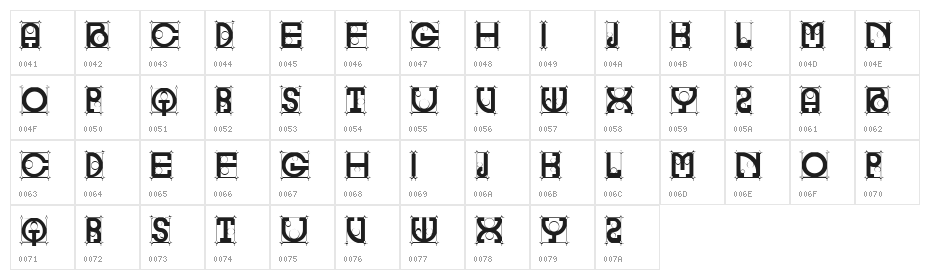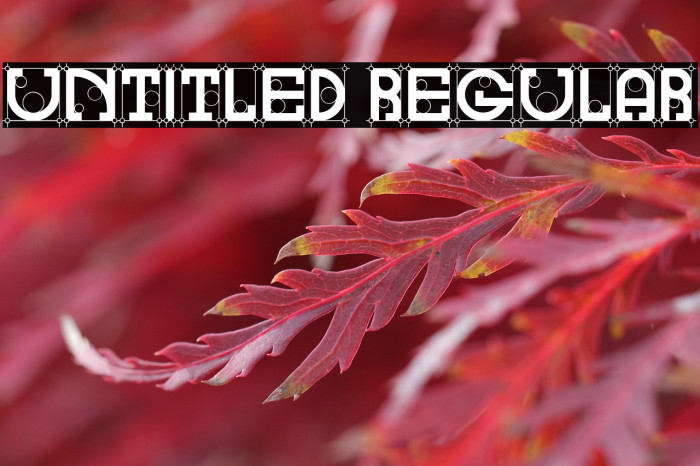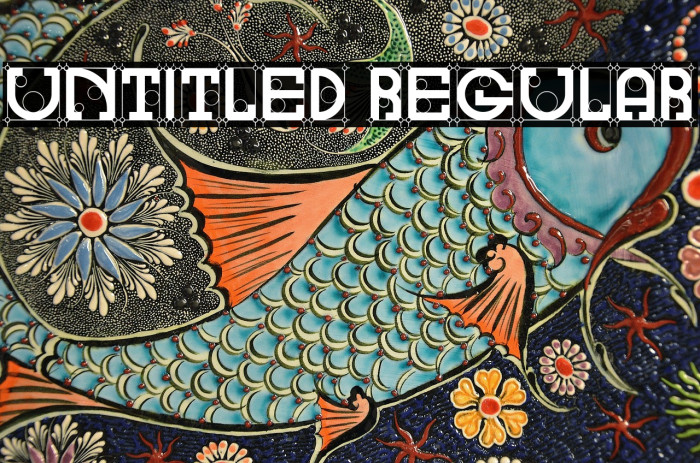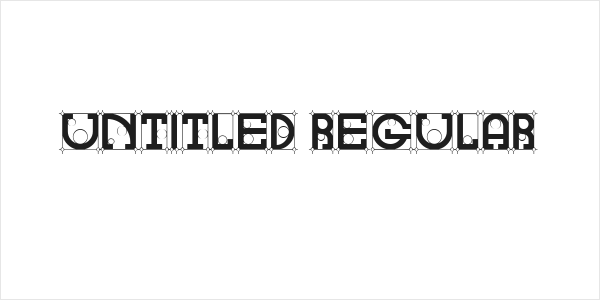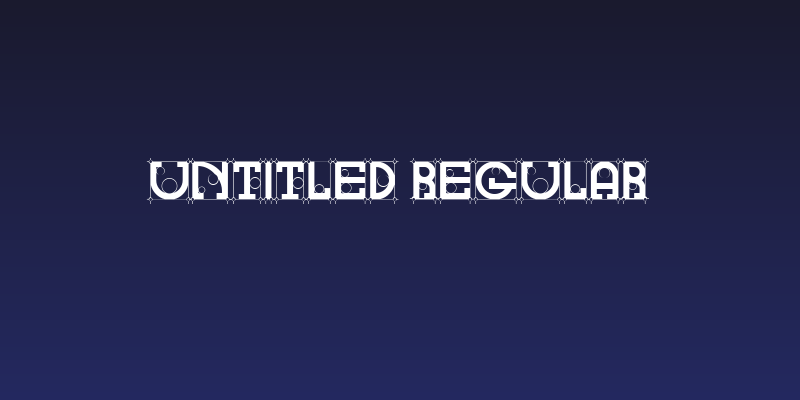
Untitled Regular Font
Untitled Regular Description
This font features a unique and intricate design, characterized by geometric shapes and decorative elements. Each letter is enclosed within a square frame, with circular and star-like motifs adding a distinct ornamental touch. The bold, blocky structure of the characters is contrasted by the delicate embellishments, creating a striking visual balance. The font's style is reminiscent of Art Deco influences, with a modern twist that makes it suitable for eye-catching displays. Its elaborate design suggests a decorative use rather than for body text, making it ideal for projects that require a bold statement.
| Overall Style | Modern Decorative |
| Proposed Projects | Perfect for posters, logos, branding, and any project needing a bold, decorative touch. |